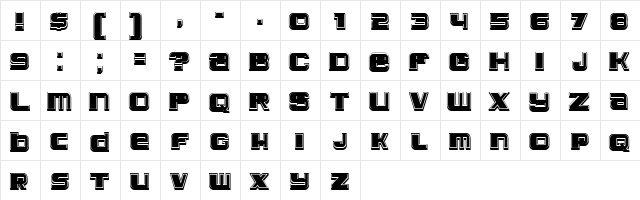
Leprosy 3D Filled Regular
Design Context for Leprosy 3D Filled Typeface
Leprosy 3D Filled is a composed and adaptable typeface that performs quietly and consistently across a wide range of design contexts.